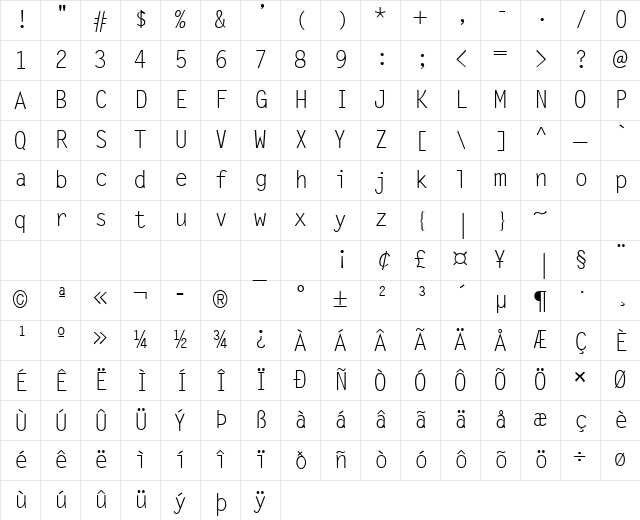
Complete Lechter Normal glyph index. Displaying only characters natively supported by Lechter Normal font.
Lechter is a composed and adaptable typeface that performs quietly and consistently across a wide range of design contexts.